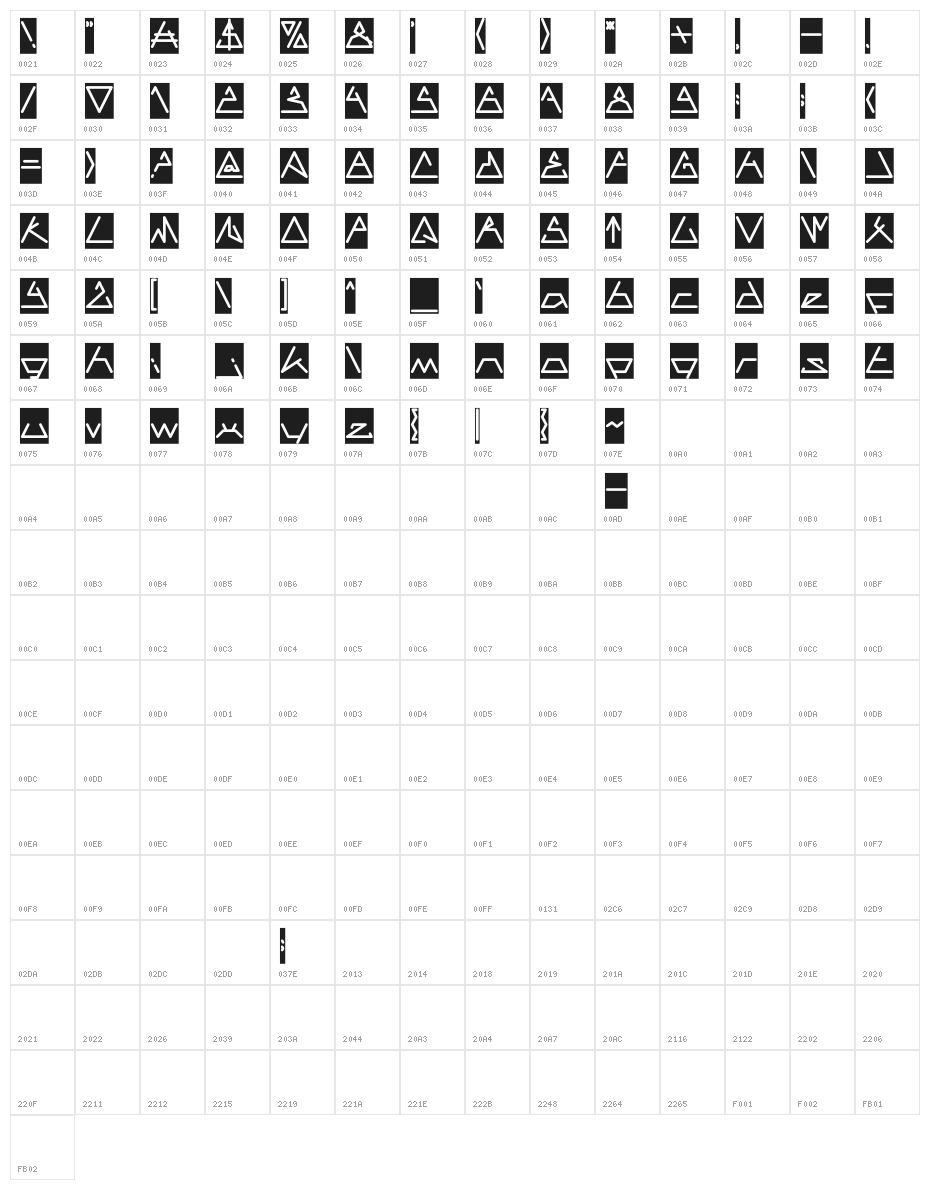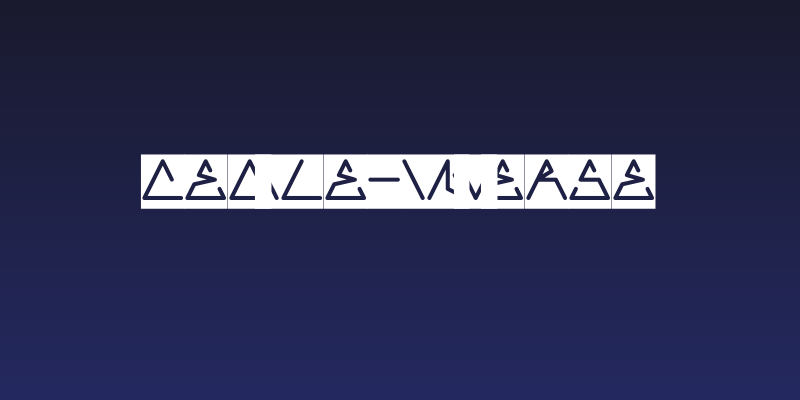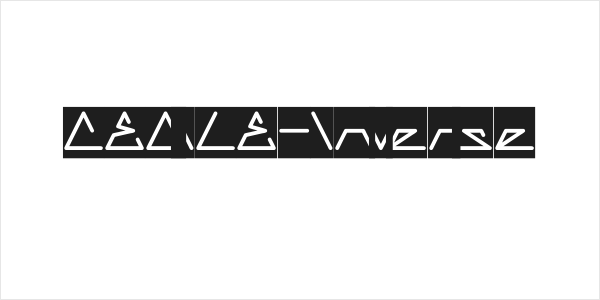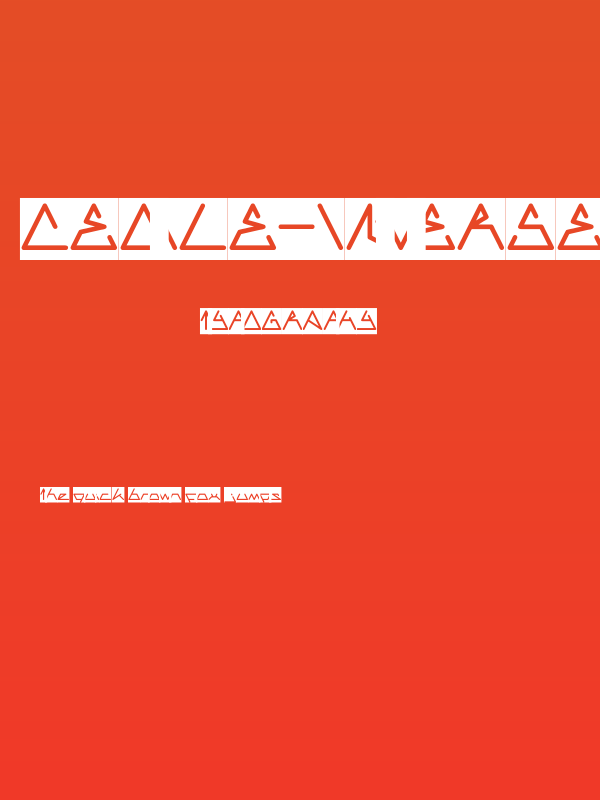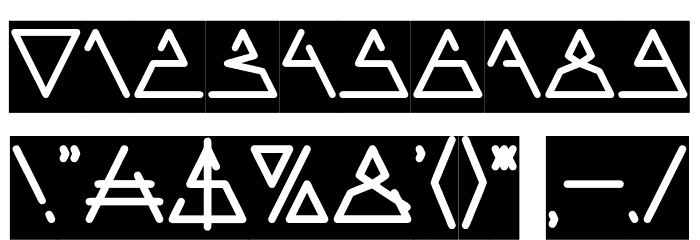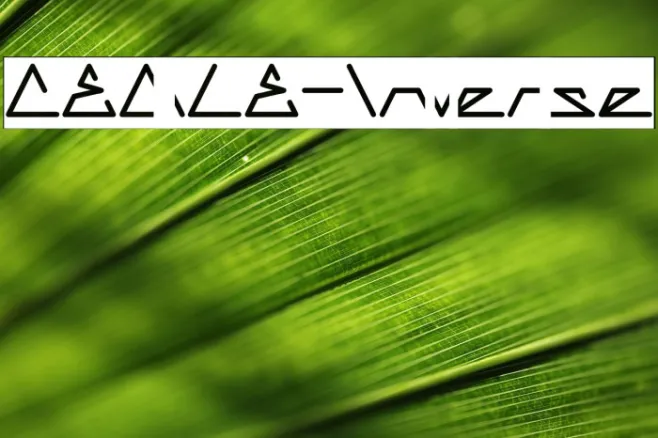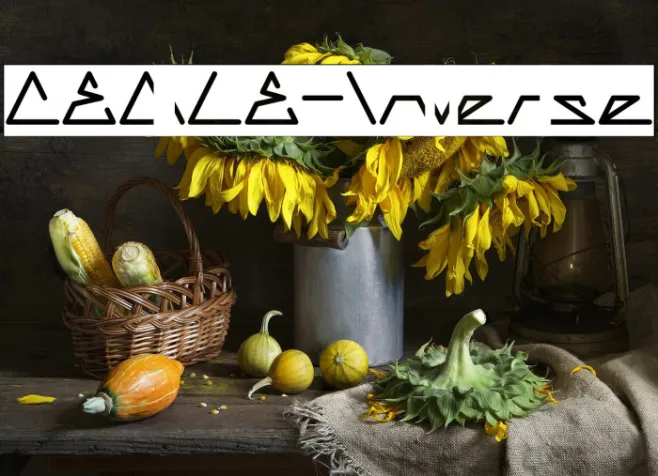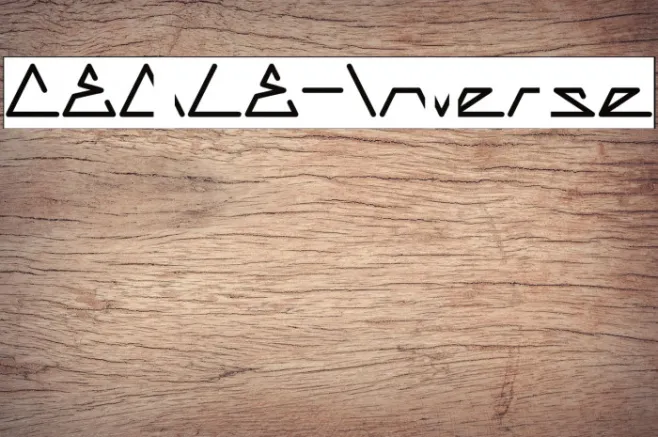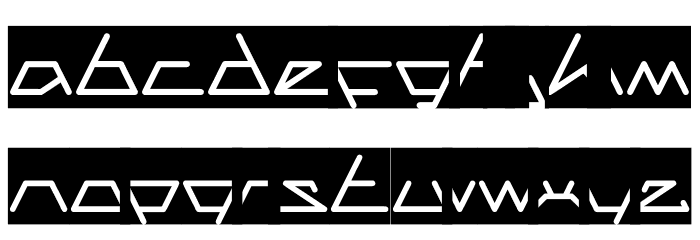
CECILE-Inverse Font
CECILE-Inverse Description
This font features a unique, angular design with a futuristic and geometric aesthetic. Each character is composed of sharp lines and angles, creating a sense of movement and modernity. The uppercase and lowercase letters maintain a consistent style, with a distinct emphasis on diagonal lines and triangular shapes. Numbers and special characters follow the same angular theme, ensuring uniformity across the entire typeface. The font's bold and striking appearance makes it ideal for projects that require a modern and edgy look.
CECILE-INVERSE UPPERCASE
CECILE-INVERSE LOWERCASE
CECILE-INVERSE OTHER CHARS
| Proposed Projects | Ideal for sci-fi themed designs, modern branding, technology-related projects, and edgy posters. |